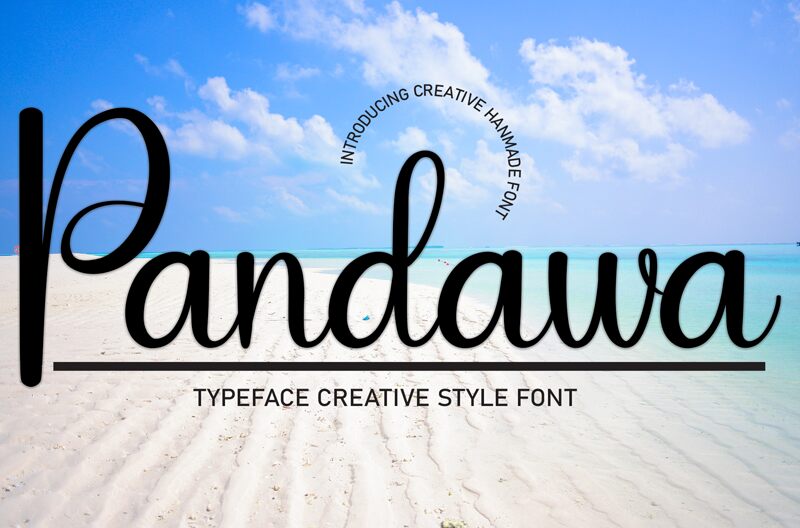
Pandawa
Pandawa is a captivating handwritten font designed by Andi Moz. Its flowing, organic strokes evoke a sense of warmth and personality, making it an ideal choice for a wide range of design applications.
The font's unique character is evident in the subtle variations and distinctive ligatures, adding a touch of artistry to any text. Pandawa's versatility shines through, lending itself seamlessly to branding, editorial design, and even personal correspondence.
Its fluid, expressive nature breathes life into the written word, creating a memorable and impactful visual experience.